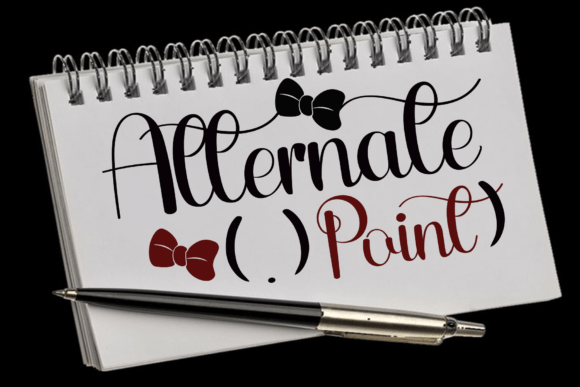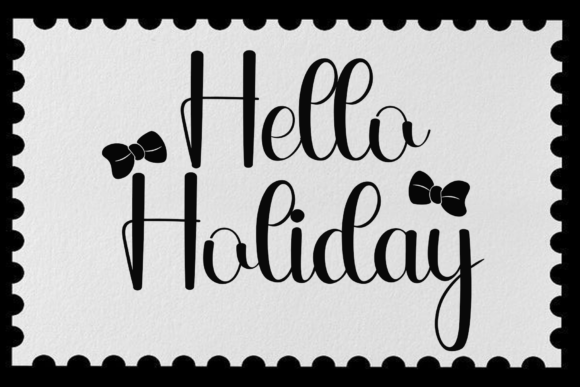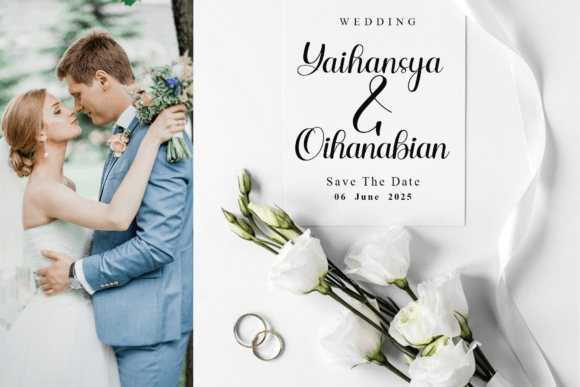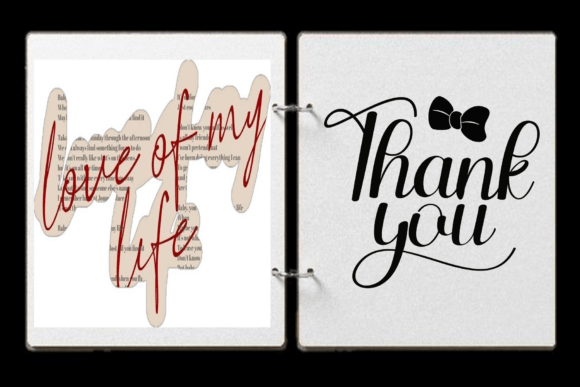
The Perfect Gift: Discovering the Charm of Father Day Font
I’ll never forget the time I was working on a wedding invitation project, and my client asked for a font that was “warm,” “inviting,” and “totally unique.” I scoured the internet, tried out dozens of fonts, but nothing seemed quite right. That was until I stumbled upon Father Day Font. It was love at first sight! 💕 This sweet and friendly handwritten font has been a game-changer for my designs, and I’m excited to share its charm with you.
So, what makes Father Day Font so special? Here are a few things I adore:
- ✨ Fresh and casual vibe that’s perfect for wedding invites, cards, and more
- ✅ Easy to read, even in smaller sizes
- 💖 Beautifully crafted letters with a lovely, hand-written feel
Of course, no font is perfect, and there are a few quirks to keep in mind:
- ⚠️ Some users may find the font a tad too casual for very formal designs
- 🤔 Limited availability of certain OpenType features (more on that later)
A Practical Guide: Using Father Day Font in Your Designs
The Story Behind Father Day Font
According to the font’s creator, Father Day Font was designed to capture the warmth and playfulness of handwritten letters. The designer drew inspiration from classic handwritten fonts, infusing them with a modern twist. The result is a font that’s both nostalgic and fresh.